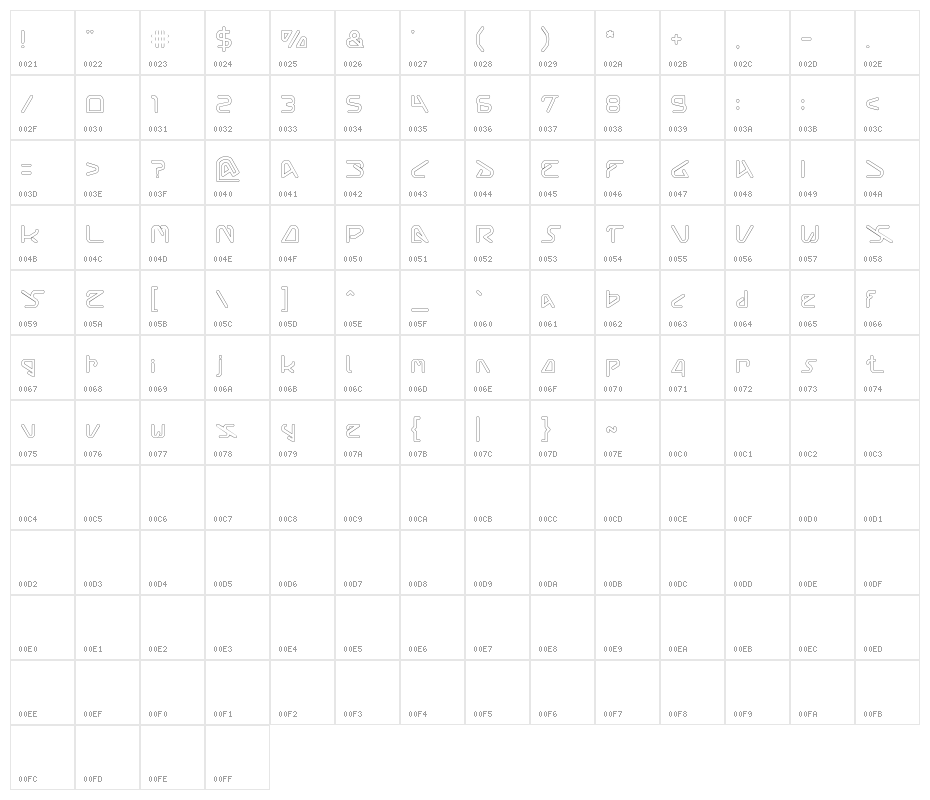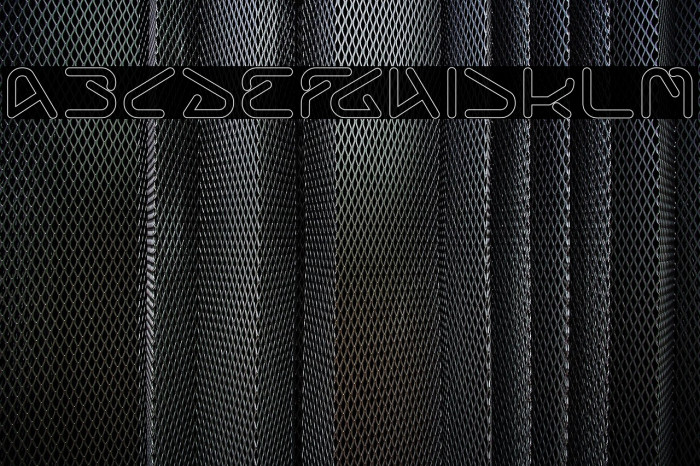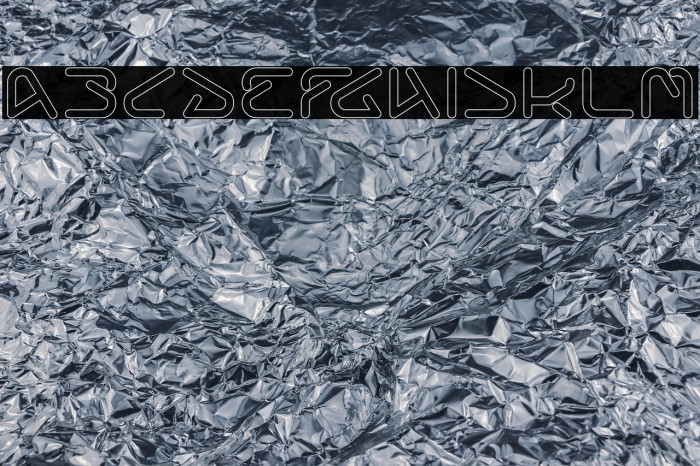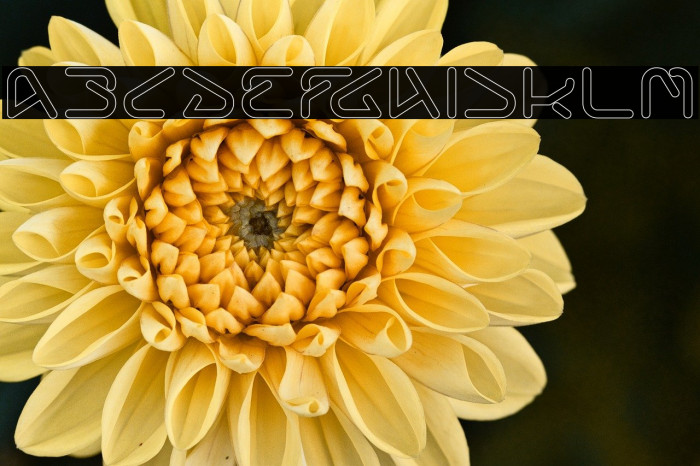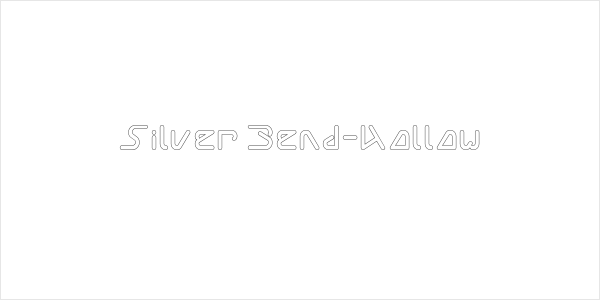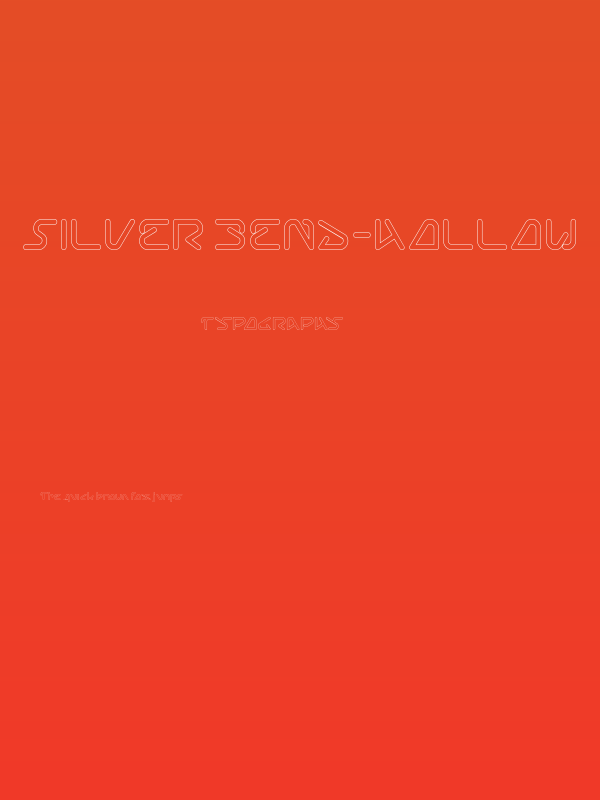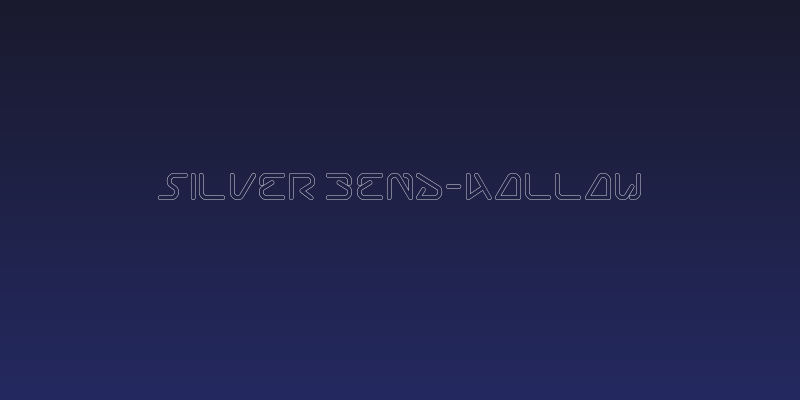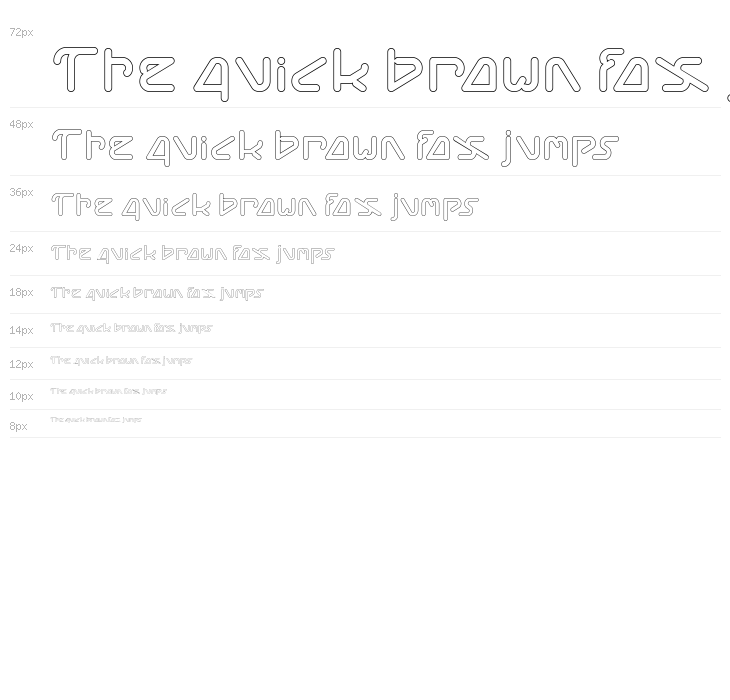
Silver Bend-Hollow Font
Silver Bend-Hollow Description
This font features a unique hollow design with a futuristic and geometric aesthetic. Each character is crafted with clean, continuous lines that form distinct shapes, creating a sense of modernity and innovation. The uppercase and lowercase letters maintain a consistent style, with rounded edges and a uniform line thickness that gives the font a cohesive appearance. The numerals and special characters follow the same design principles, ensuring a harmonious look across all elements. This font's open structure and minimalistic approach make it stand out, offering a fresh take on traditional typography.
| Proposed Projects | Ideal for tech-related branding, sci-fi themed projects, modern art installations, and innovative product packaging. |